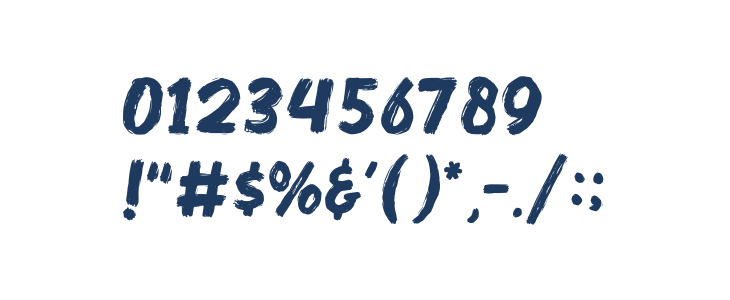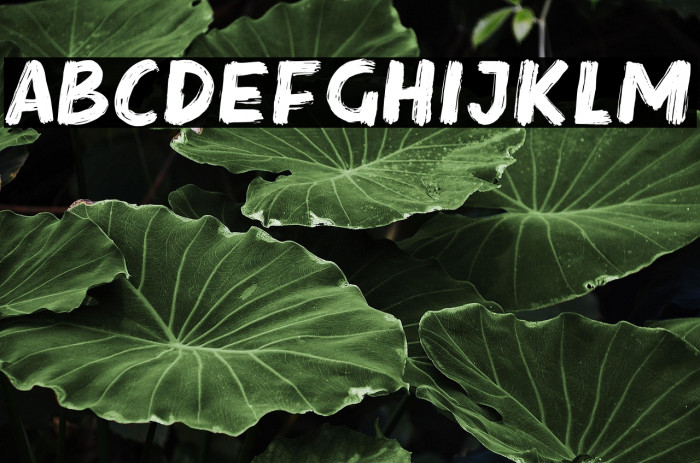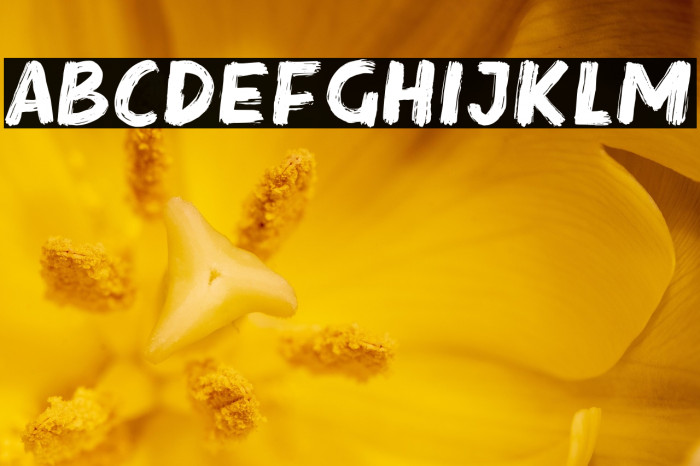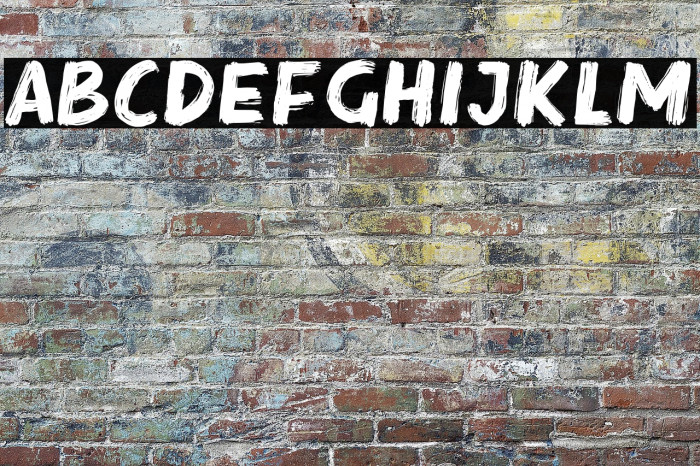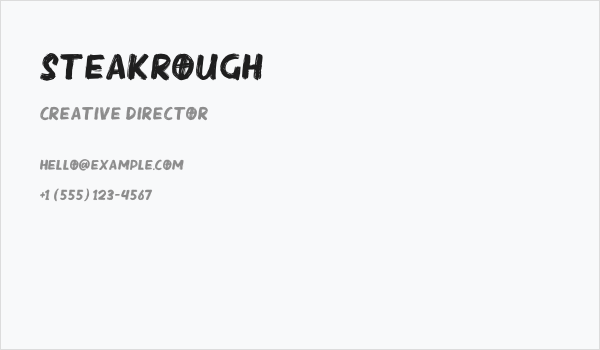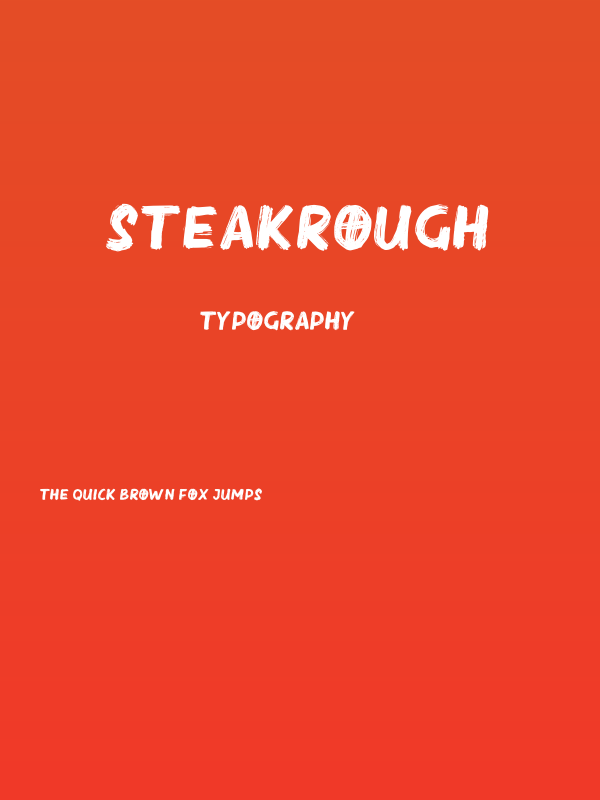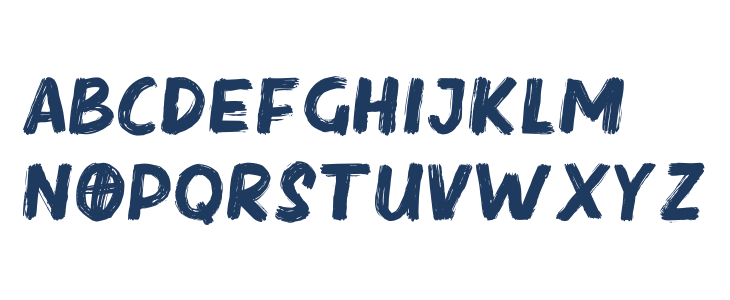
SteakRough Font
SteakRough Description
This font features a bold, brush-stroke style that exudes a sense of raw energy and dynamism. Each character appears as if it has been painted with a thick brush, giving it a textured and rugged appearance. The strokes are uneven, adding to the hand-crafted feel, while the edges are rough and slightly jagged, enhancing its organic look. The uppercase and lowercase letters maintain a consistent style, with a slightly condensed form that adds to the compactness of the text. Numbers and special characters follow the same aesthetic, ensuring a cohesive look across all elements. This font is perfect for projects that require a bold, artistic touch.
| Proposed Projects | Ideal for posters, album covers, branding, and any design needing a bold, artistic flair. |